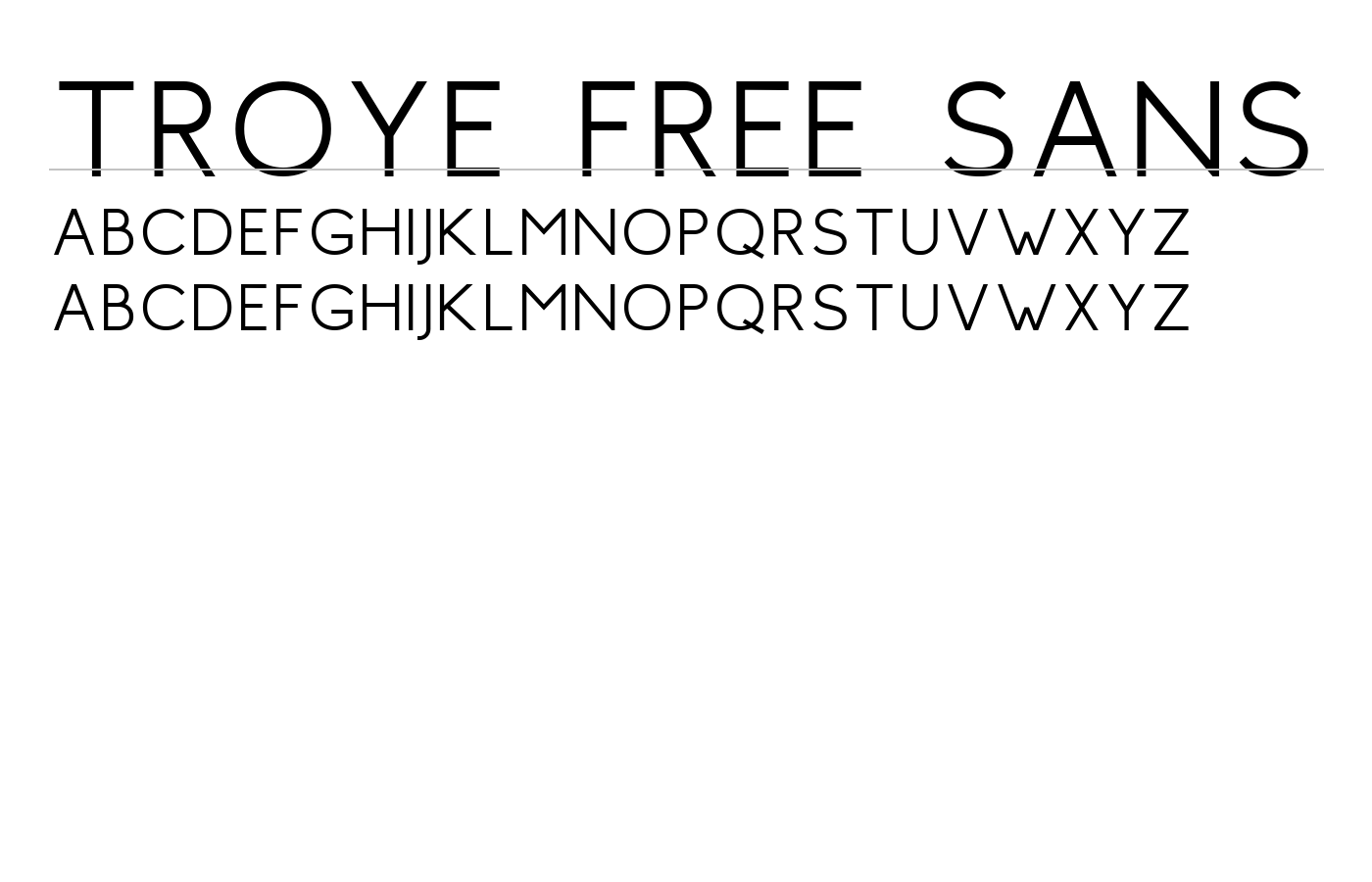
Troye is a clean and modern sans serif font with a light weight and a slightly condensed width, characterized by geometric shapes and a moderate x-height that ensures clear readability. Its minimal stroke contrast and simple, precise letterforms give it a sleek, professional feel, making it ideal for contemporary branding, editorial headlines, and digital interfaces where clarity and elegance are key. Troye’s understated style works well in both display and body text, offering versatility for a range of design projects.
Troye Font
About Troye Font